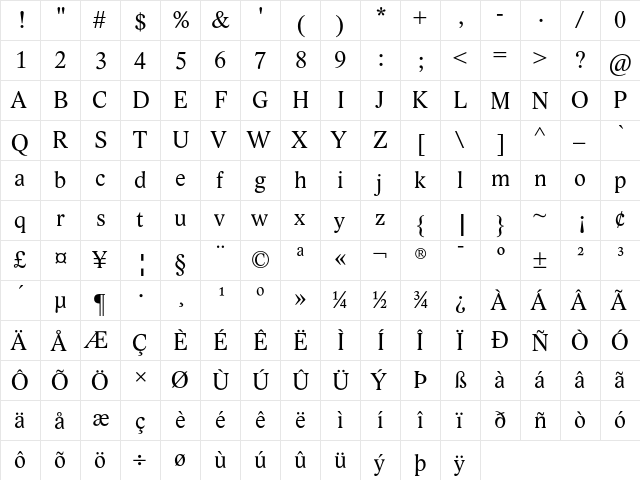
Lido ST Regular
Regular ·  Frantisek Storm ·
DesignerFrantisek Storm
Design Context for Lido ST Typeface
Lido ST takes a measured approach to typography — its balanced proportions and neutral character make it a reliable workhorse for both digital and print work.